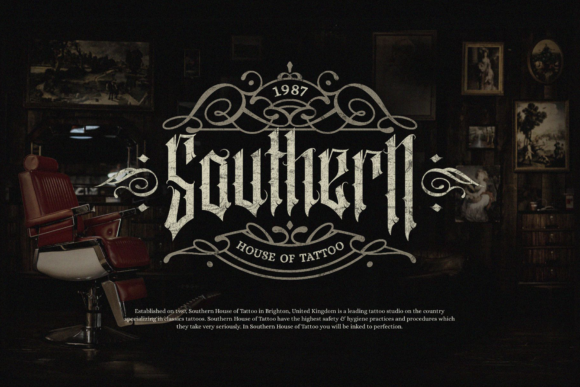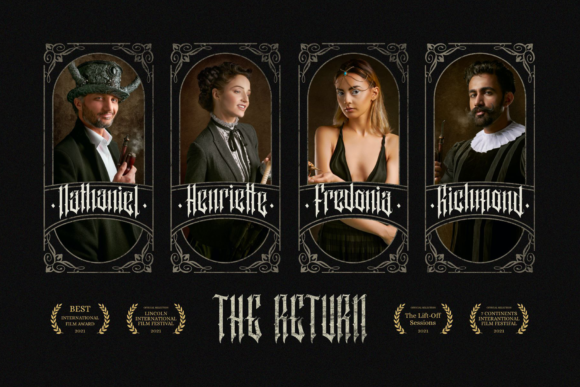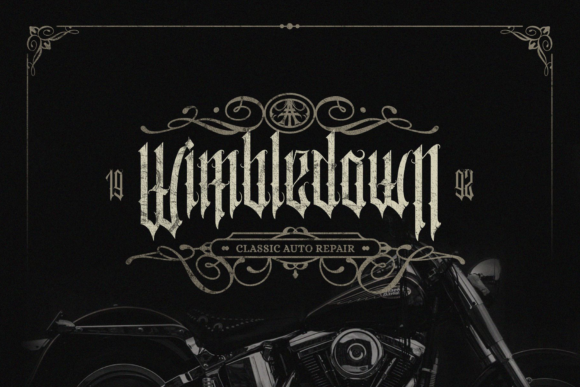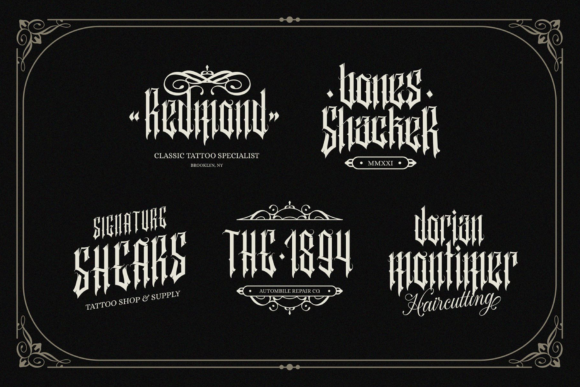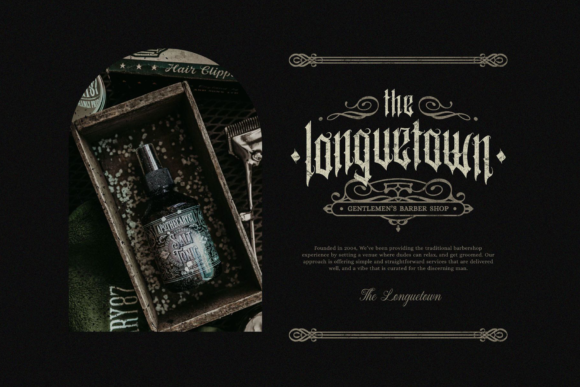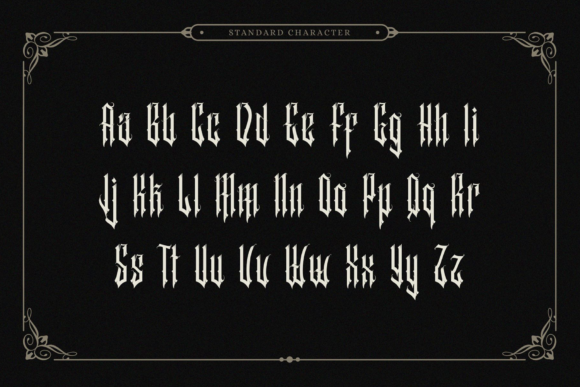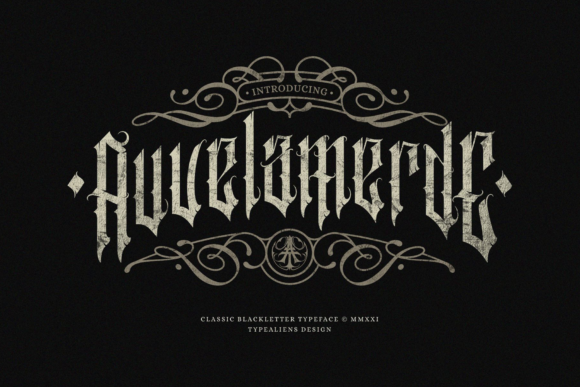
Introducing Auvelamerde Font: The Ultimate Blackletter Typeface for Designers and Crafters
In the world of typography, few fonts have made a lasting impact like the classic blackletter fonts. With their bold, dramatic strokes and distinctive flair, blackletter fonts have been a staple of design and crafting for centuries. One such font that has been making waves in the design community is Auvelamerde Font. This assertive and elegant typeface is perfect for designers and crafters looking to add a touch of sophistication and drama to their creations.
What is Auvelamerde Font?
Auvelamerde Font is a classic blackletter typeface that exudes confidence and elegance. With its bold, sweeping strokes and intricate details, this font is sure to make a statement in any design or craft project. Whether you’re working on a logo, a poster, or a handmade craft, Auvelamerde Font is the perfect choice for those looking to add a touch of drama and sophistication.
Key Features of Auvelamerde Font
So, what makes Auvelamerde Font so special? Here are just a few of its key features:
- Classic Blackletter Style: Auvelamerde Font is a traditional blackletter typeface, with bold, dramatic strokes and intricate details.
- Assertive and Elegant: This font is both confident and elegant, making it perfect for designs that require a touch of sophistication.
- Highly Versatile: Auvelamerde Font can be used in a wide range of design and craft projects, from logos and posters to handmade crafts and DIY projects.
- Easy to Read: Despite its bold and dramatic style, Auvelamerde Font is surprisingly easy to read, making it perfect for designs that require a clear and concise message.
Uses for Auvelamerde Font
So, what can you use Auvelamerde Font for? The possibilities are endless! Here are just a few ideas to get you started:
- Logo Design: Auvelamerde Font is perfect for logos that require a bold and dramatic look.
- Poster Design: This font is ideal for posters that need to grab attention and make a statement.
- Handmade Crafts: Auvelamerde Font can be used to add a touch of elegance and sophistication to handmade crafts, such as journals, cards, and gift tags.
- DIY Projects: This font is perfect for DIY projects that require a bold and confident look, such as signage, banners, and decorations.
Tips for Using Auvelamerde Font
Here are a few tips for using Auvelamerde Font in your design and craft projects:
- Use it Boldly: Auvelamerde Font is a bold and dramatic font, so don’t be afraid to use it in large sizes and bold colors.
- Experiment with Colors: This font looks great in a wide range of colors, from bold and bright to muted and subtle.
- Pair it with Other Fonts: Auvelamerde Font can be paired with other fonts to create a unique and interesting look.
- Pay Attention to Details: This font has intricate details, so make sure to pay attention to them when using it in your designs.
In conclusion, Auvelamerde Font is a classic and assertive blackletter font that is perfect for designers and crafters looking to add a touch of sophistication and drama to their creations. With its bold, sweeping strokes and intricate details, this font is sure to make a statement in any design or craft project. Whether you’re working on a logo, a poster, or a handmade craft, Auvelamerde Font is the perfect choice for those looking to add a touch of elegance and confidence.
Auvelamerde Font is a versatile and elegant typeface that is sure to make a lasting impact on your design and craft projects. With its classic blackletter style, assertive and elegant look, and highly versatile nature, this font is perfect for designers and crafters looking to add a touch of sophistication and drama to their creations. So why not give it a try and see the amazing results for yourself?